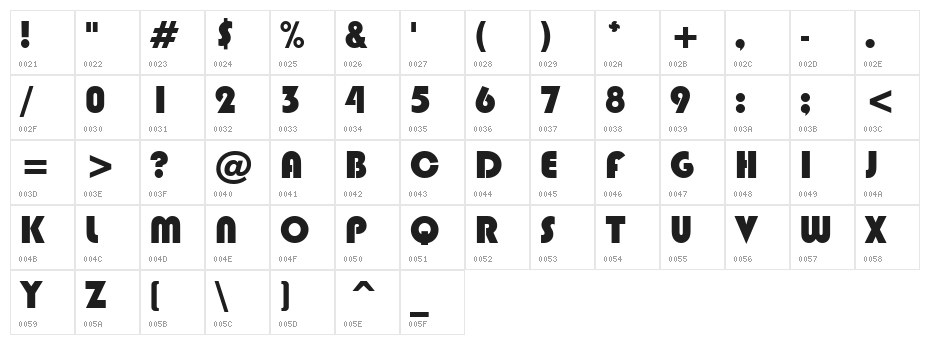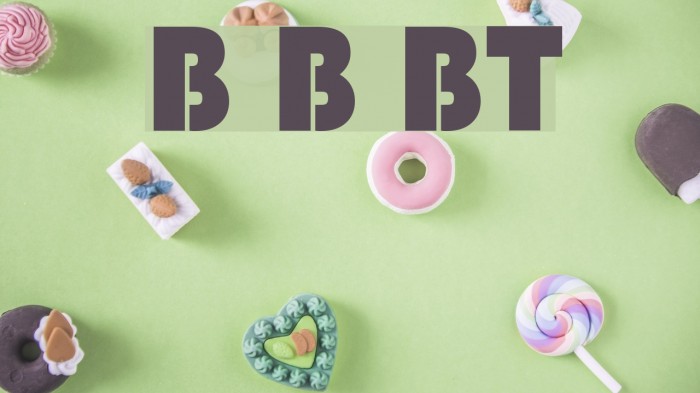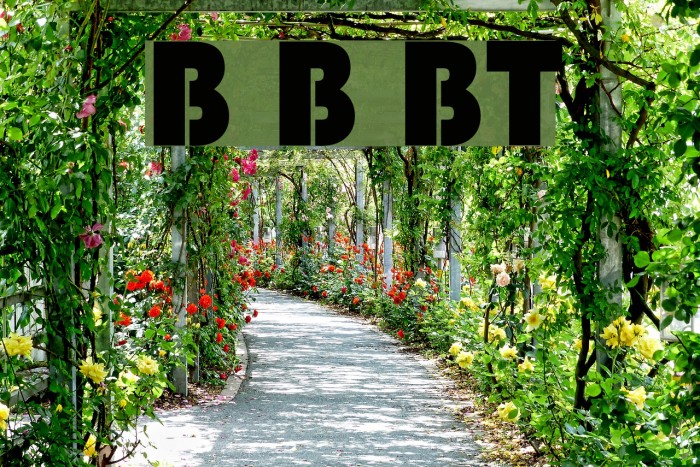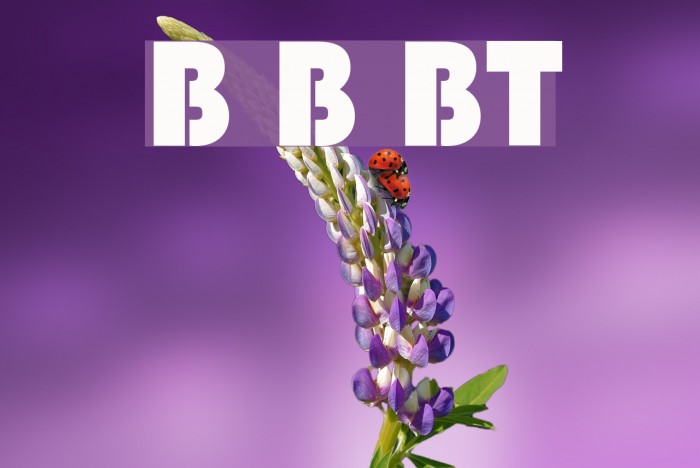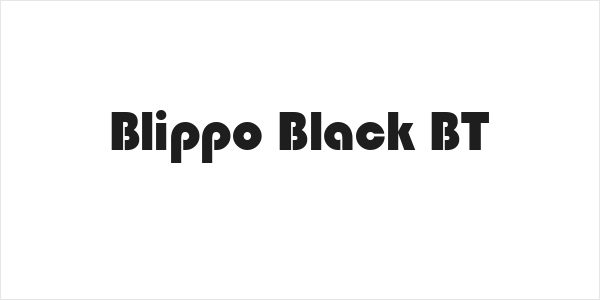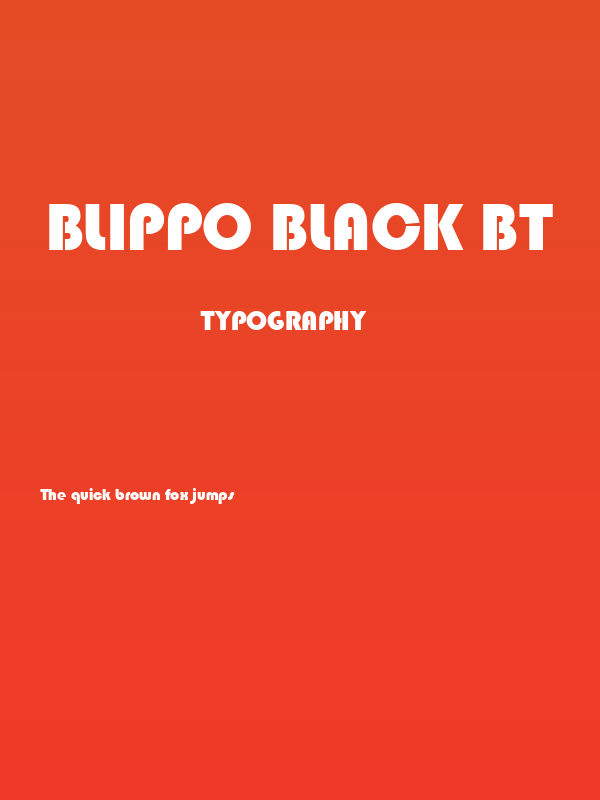
Blippo Black BT Font
Blippo Black BT Description
This font features a bold and playful style with thick, rounded letterforms that exude a sense of fun and approachability. The characters are uniformly wide, creating a strong visual impact. The uppercase letters are particularly striking, with a geometric influence that adds a modern touch. The lowercase letters maintain the same boldness, ensuring consistency across the typeface. Numbers and special characters are equally bold, making them stand out in any design. The overall appearance is both retro and futuristic, making it versatile for various creative applications.
| Proposed Projects | Ideal for children's books, playful branding, posters, and retro-themed designs. |